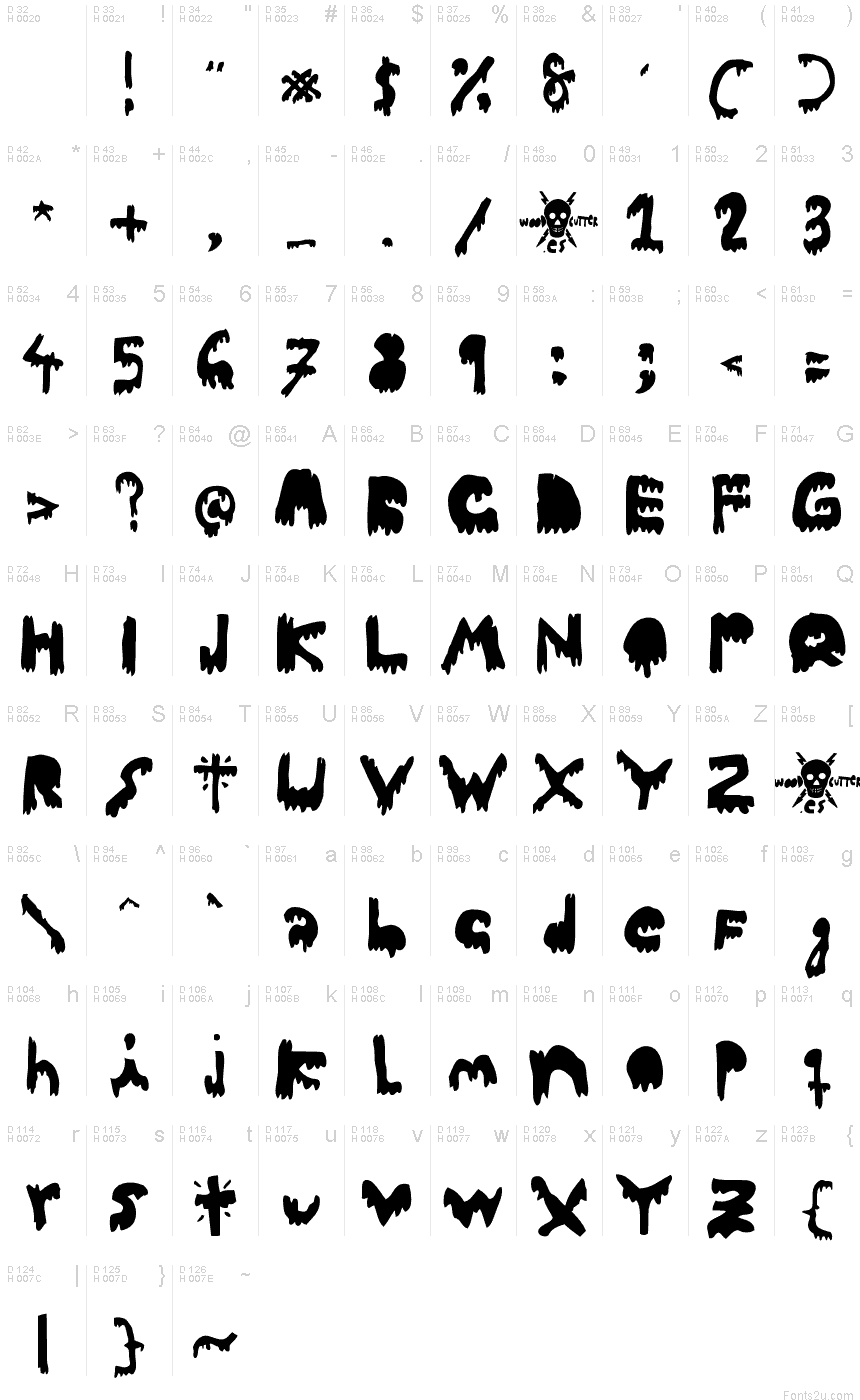
Woodcutter Dripping Nightmare is a free scary cartoon display font with swollen letters that sag into thick, uneven drips. Rounded tops and ragged lower edges give the lettering a gooey silhouette, with small notches and splashes breaking up the larger shapes.
It is best suited to horror-comedy title cards, where the melting forms can become part of the joke as well as the lettering. Halloween event posters and monster-themed game graphics also suit its blunt, messy drawing. The clearest audience is horror fans and designers working on playful seasonal entertainment.